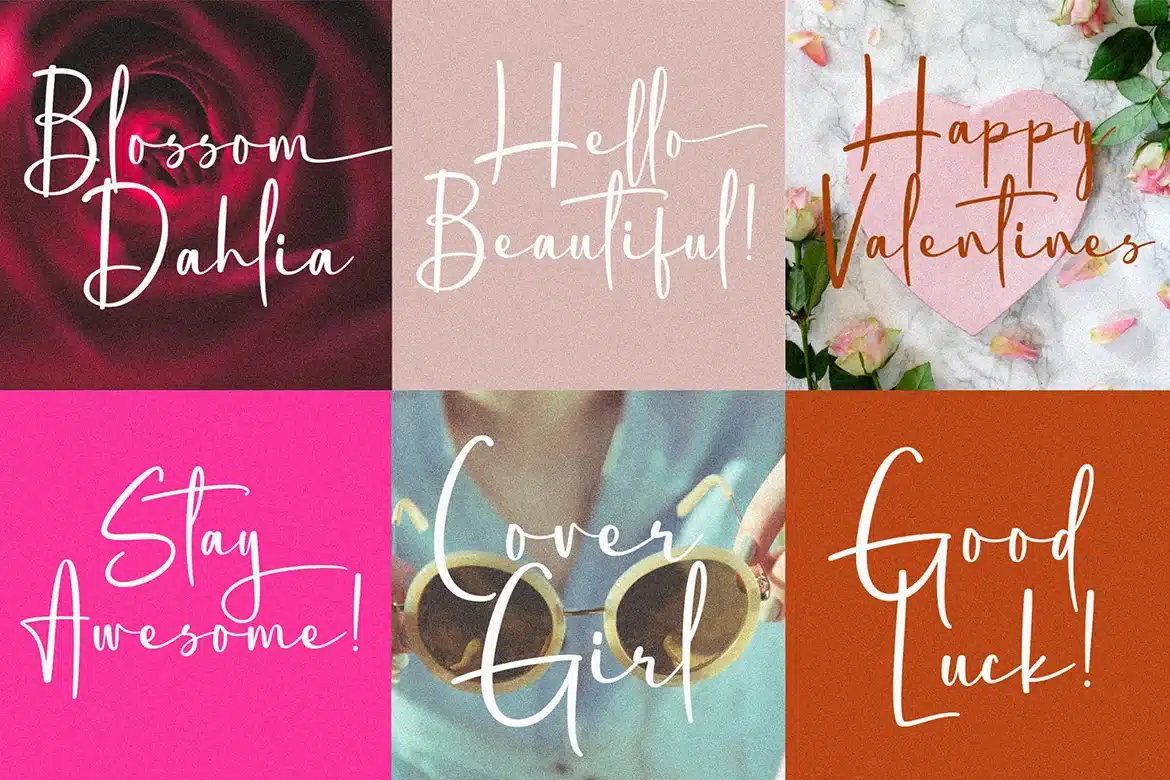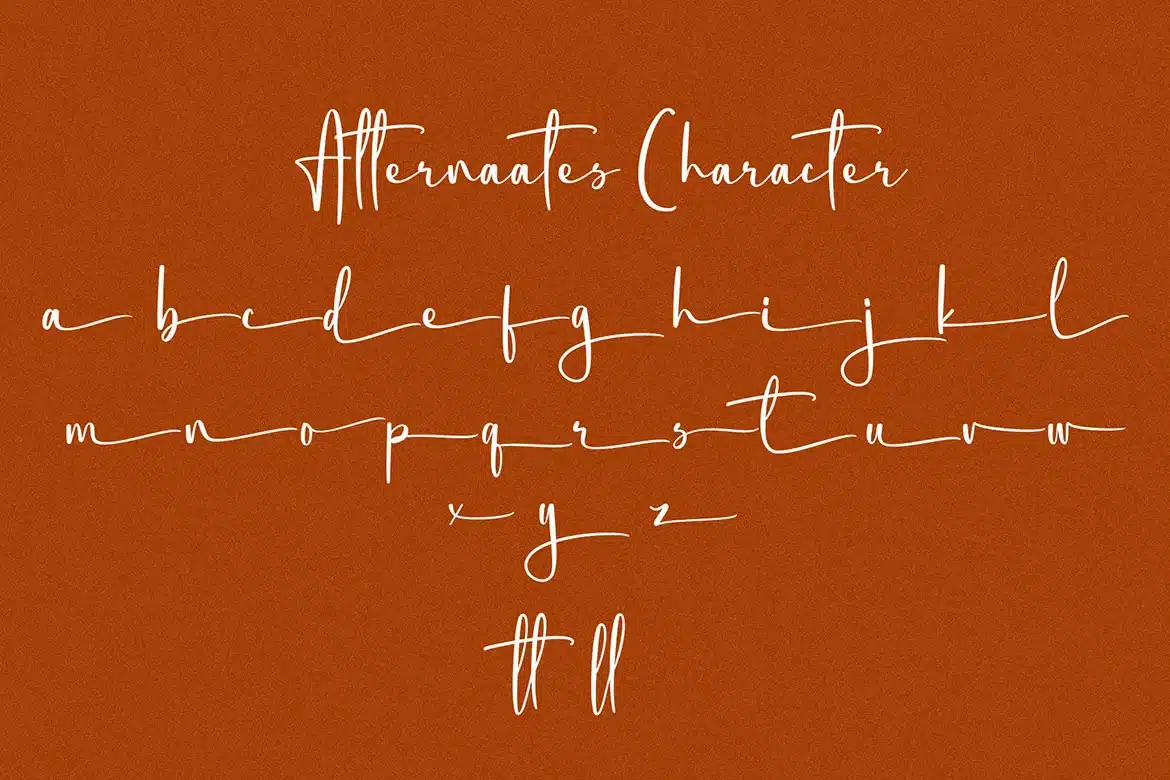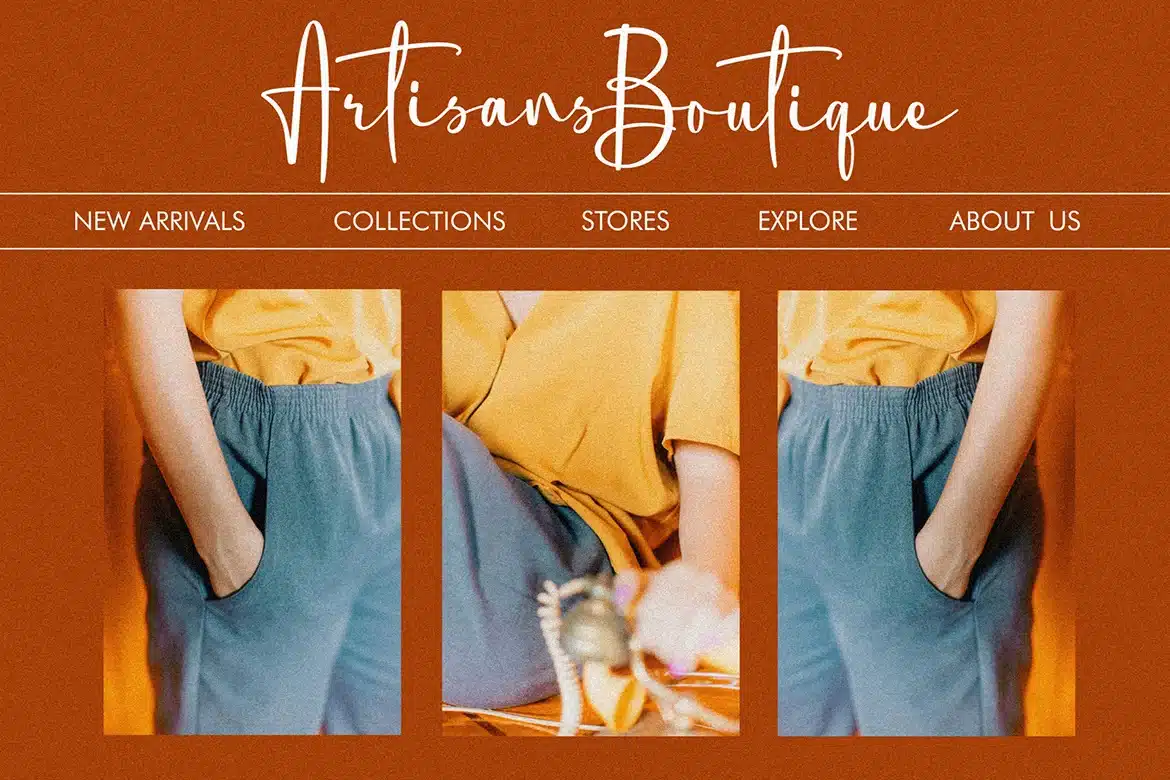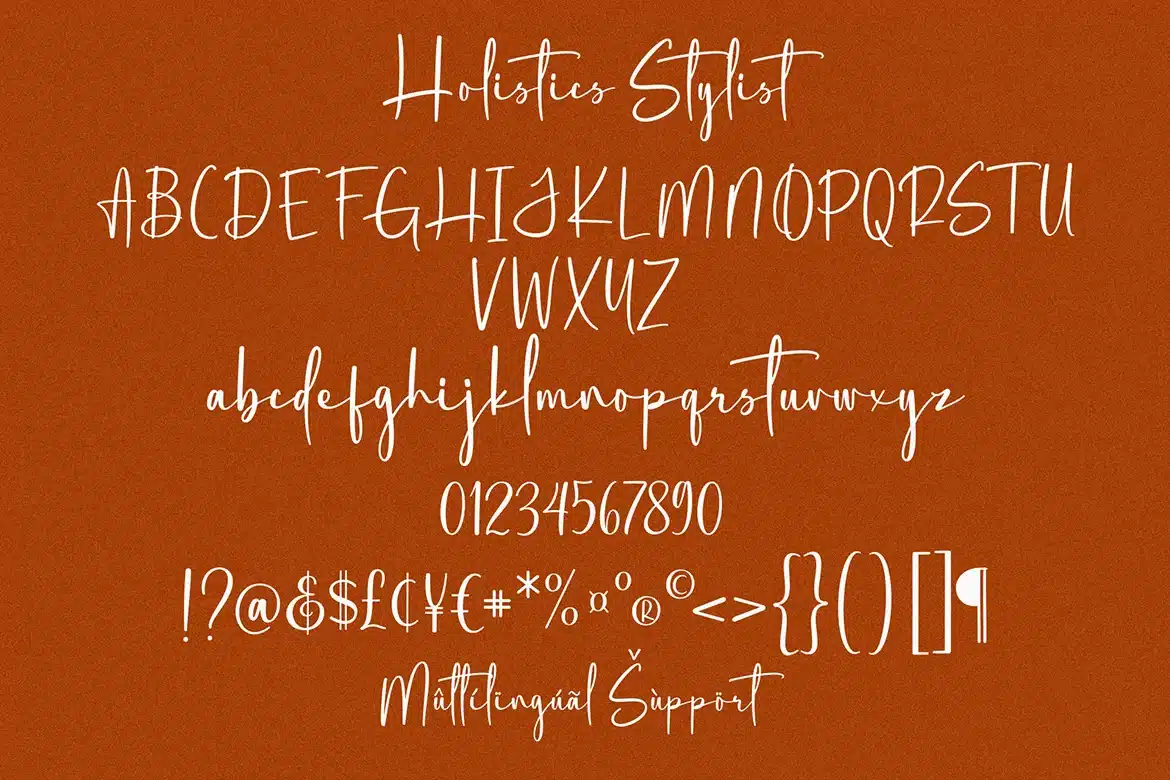
Holistics Stylist – Modern Signature font
Holistics Stylist is a Stylish and modern Signature font, Like making a quick signature, it has a elegant, classy look and beauty.
Holistics Stylist is great for wedding invitation card designs, advertisements, product designs, stationery, product packaging, quotes , brand logo ,posters and so on.
- numeric & Multilingual support
- Stylistic Alternates with Ss01